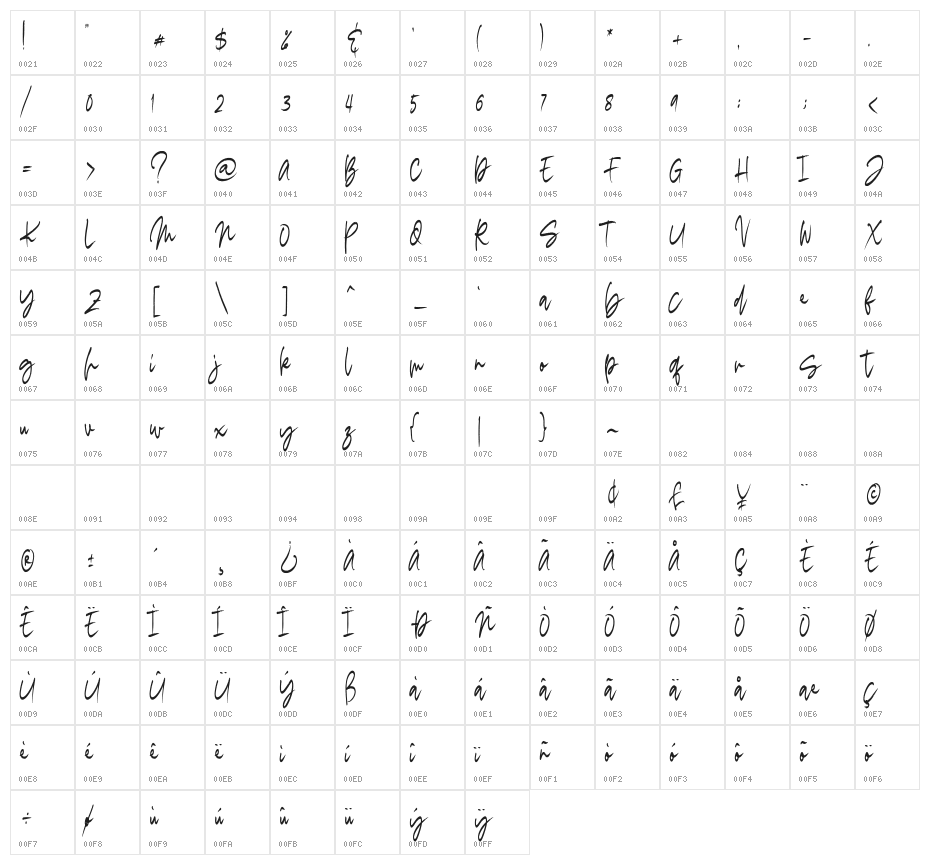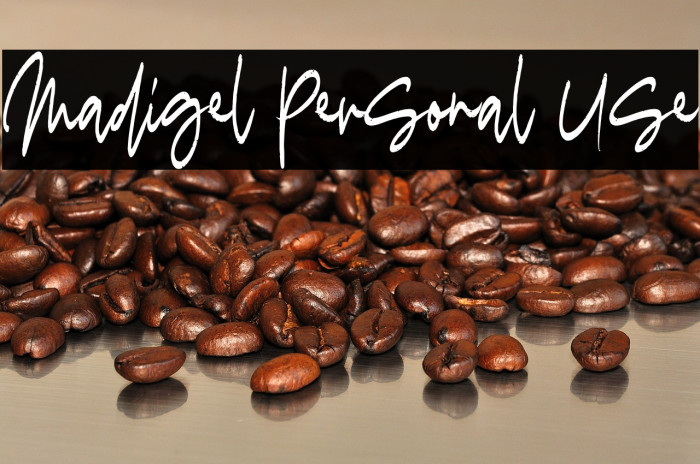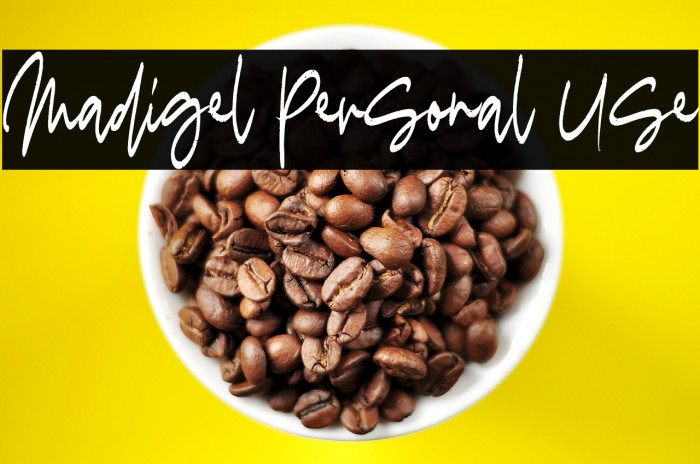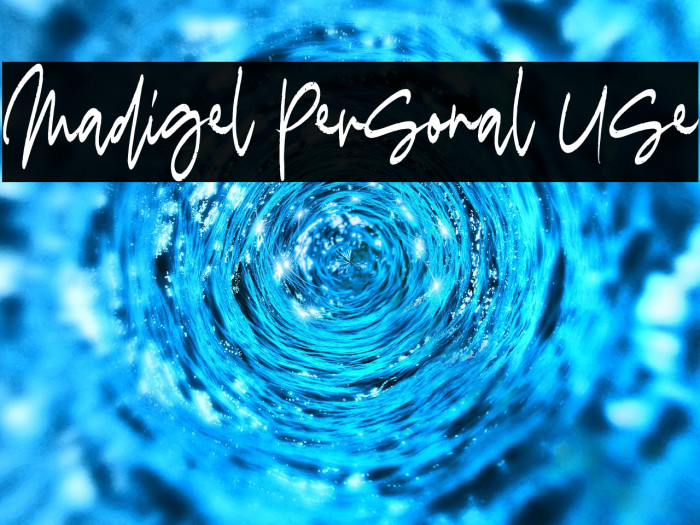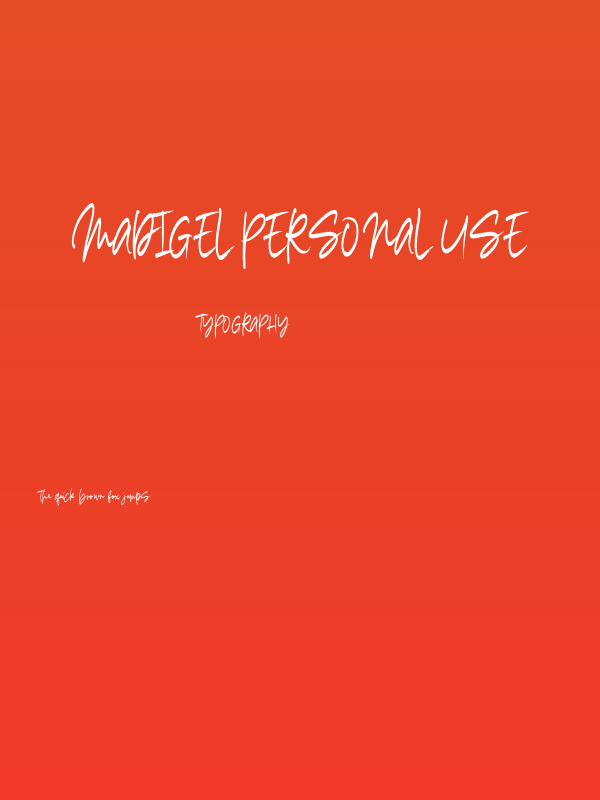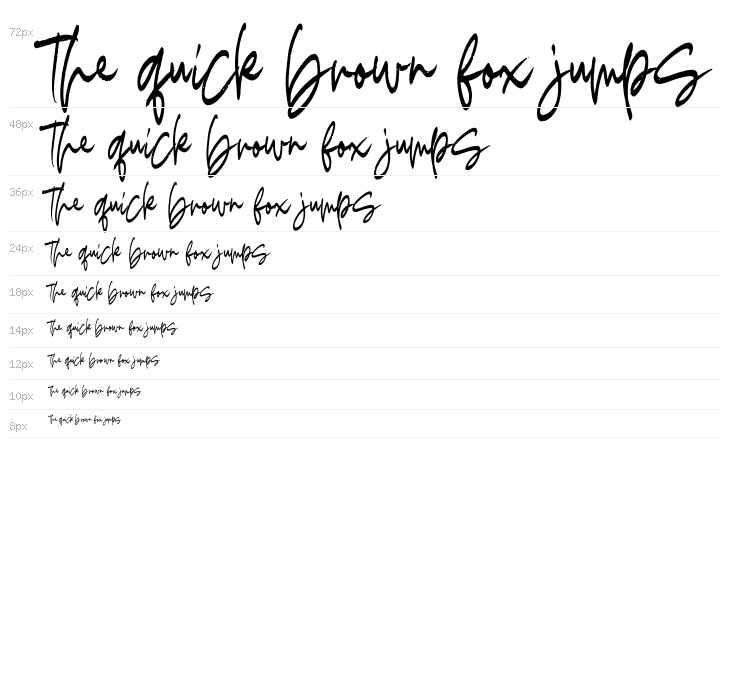
Madigel Personal Use Font
Madigel Personal Use Description
This font exhibits a dynamic and expressive handwritten style, characterized by its fluid and cursive strokes. The letters are connected in a natural flow, creating a sense of movement and personal touch. The uppercase letters are bold and slightly slanted, while the lowercase letters maintain a consistent rhythm with varying heights and loops. The numbers and special characters follow the same handwritten aesthetic, adding to the cohesive look. The overall appearance is casual yet sophisticated, making it suitable for projects that require a personal and artistic flair.
Use CaseLogos, Invitations, Artistic projects
Proposed ProjectsIdeal for personal branding, invitations, greeting cards, and artistic projects that require a personal touch.